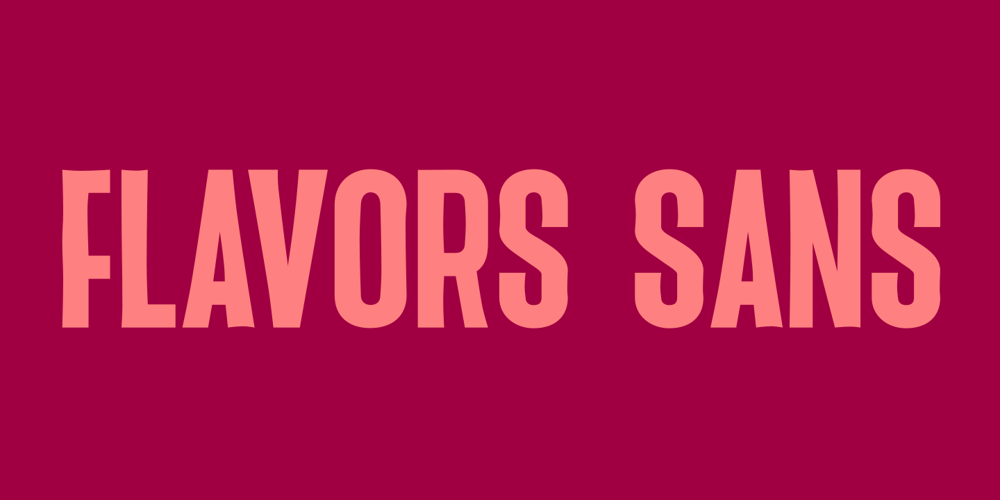
Flavor sans Font Family was designed by Arief Rochman and published by 4RM Font. Flavor sans contains 1 styles and family package options. Suitable for use in casual themed design applications, this font is made with a unique shape and condensed width, as well as a strong authenticity value.